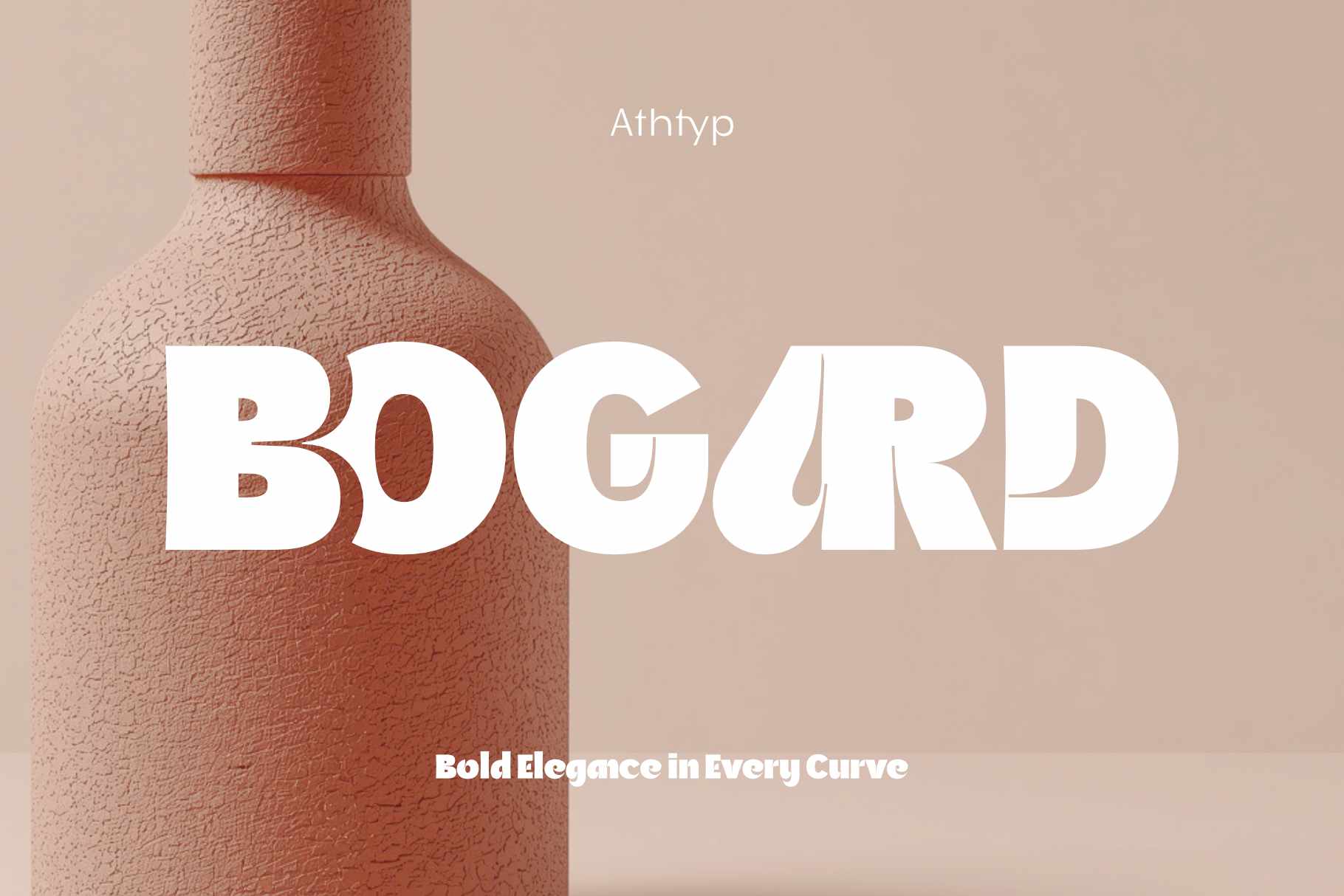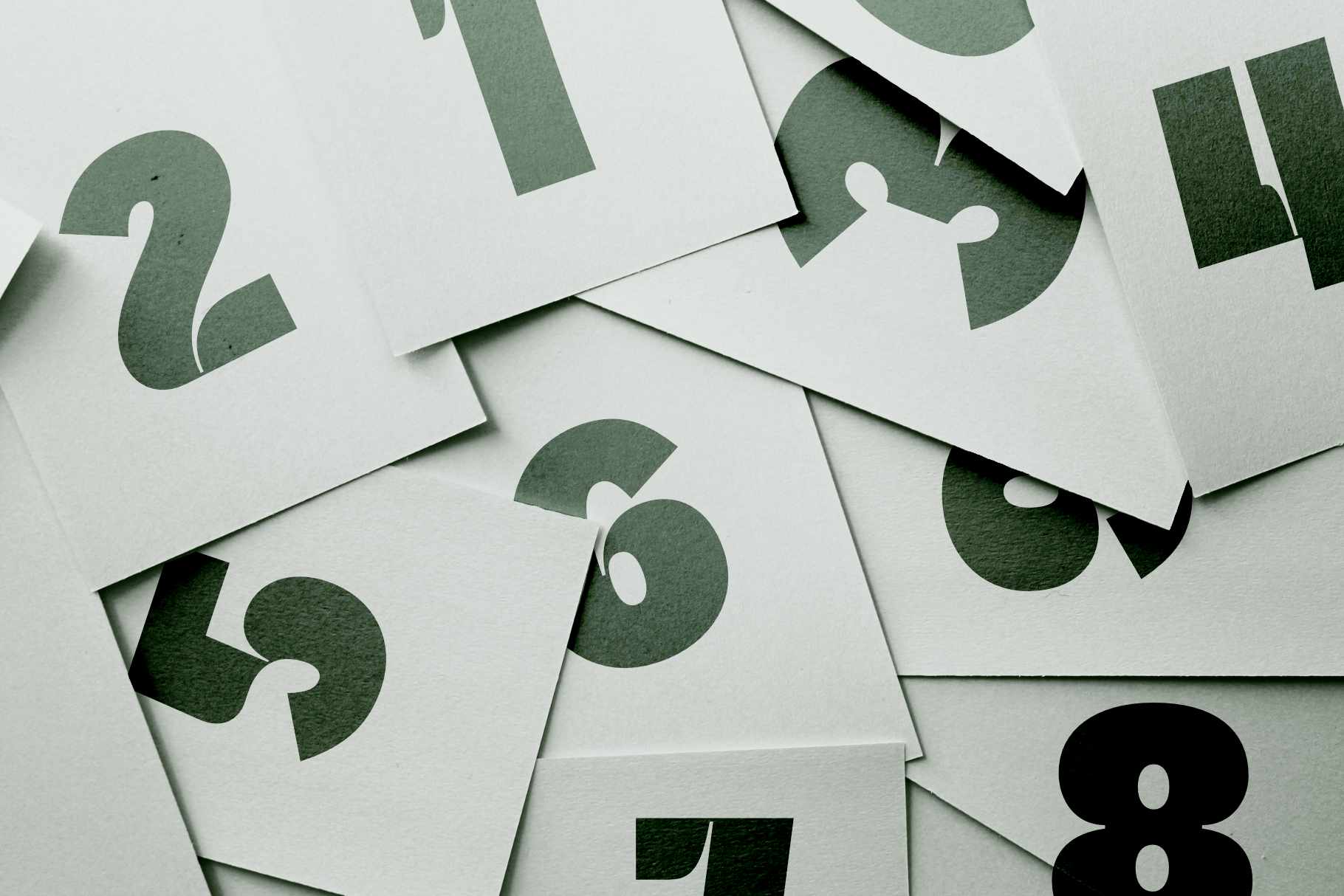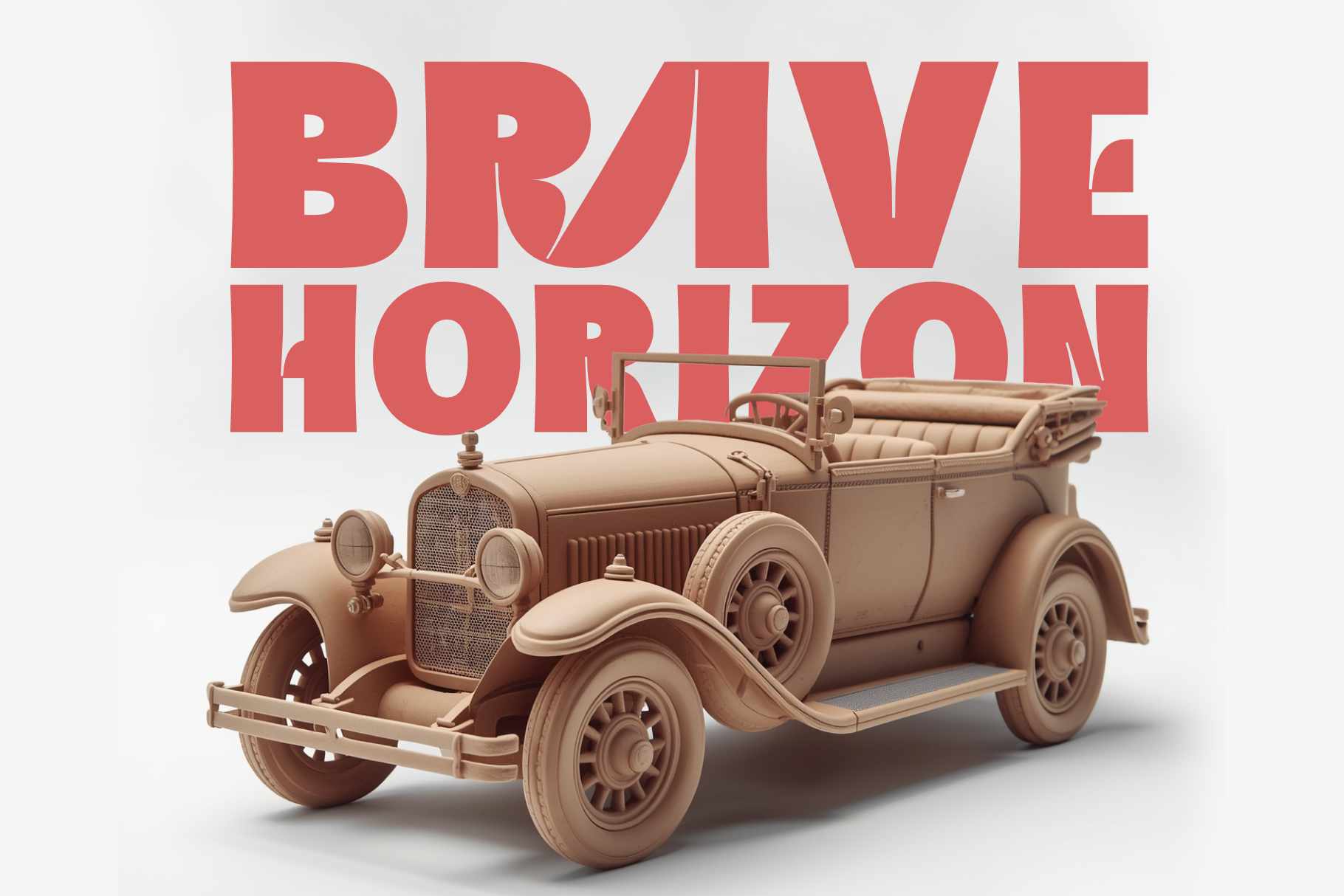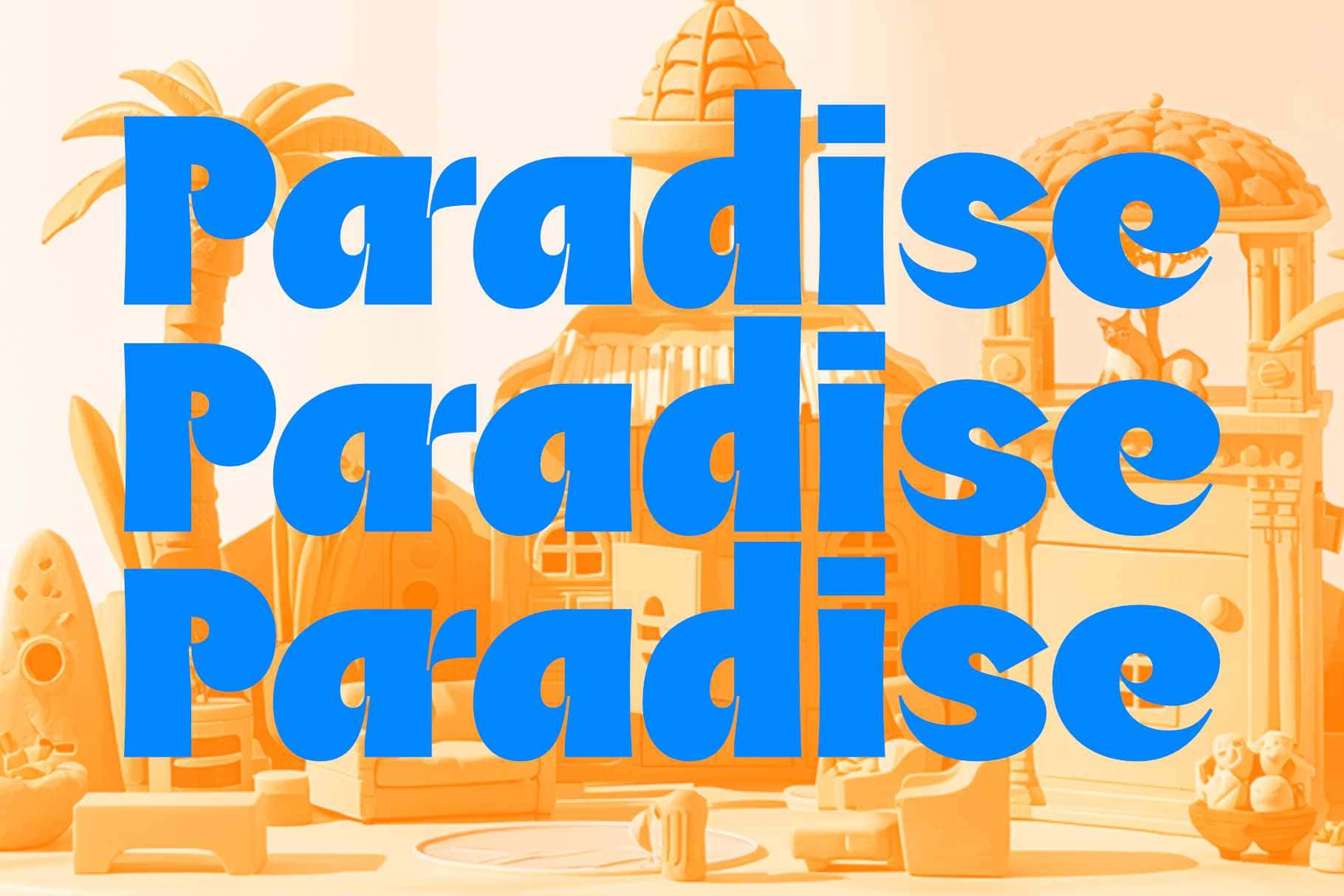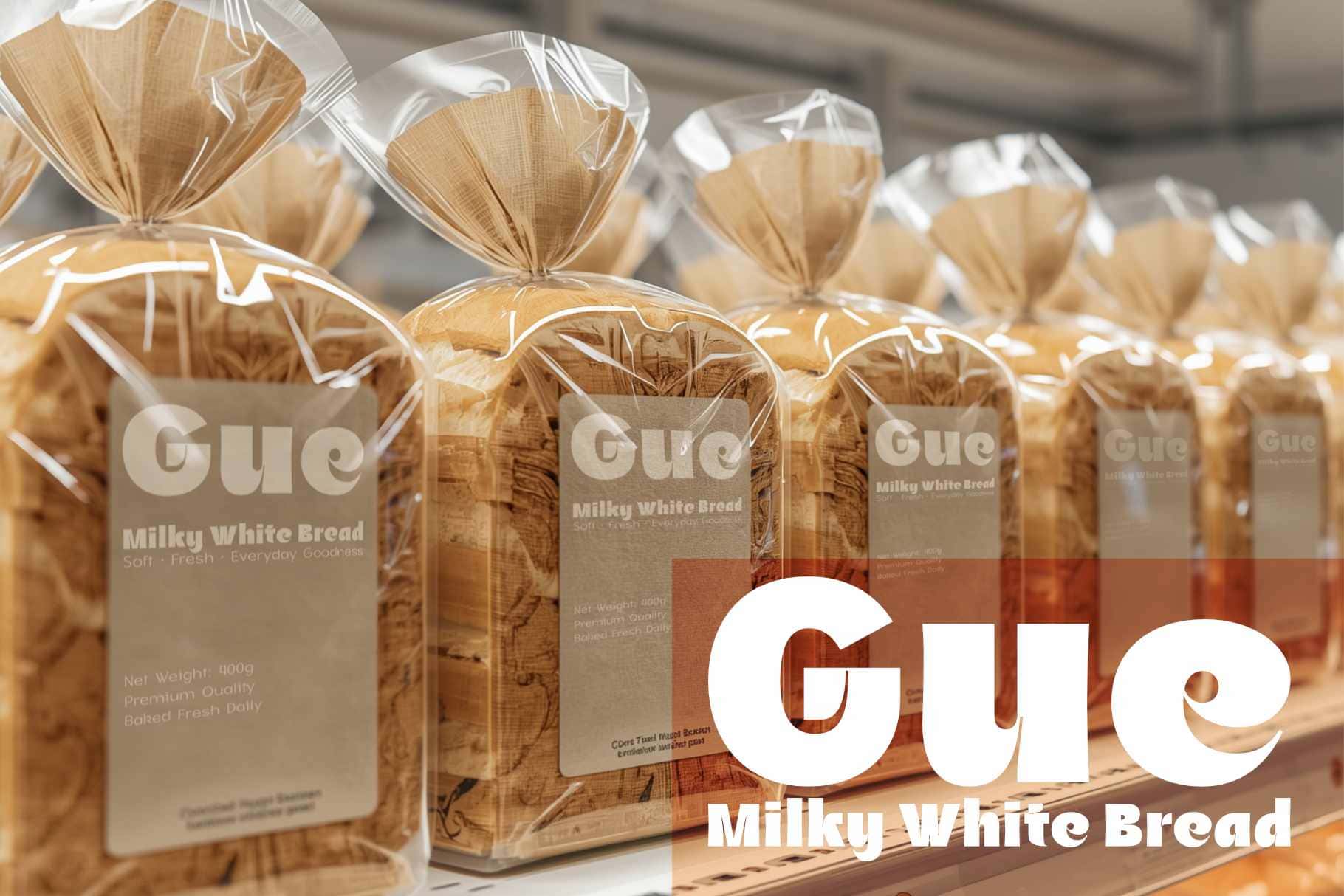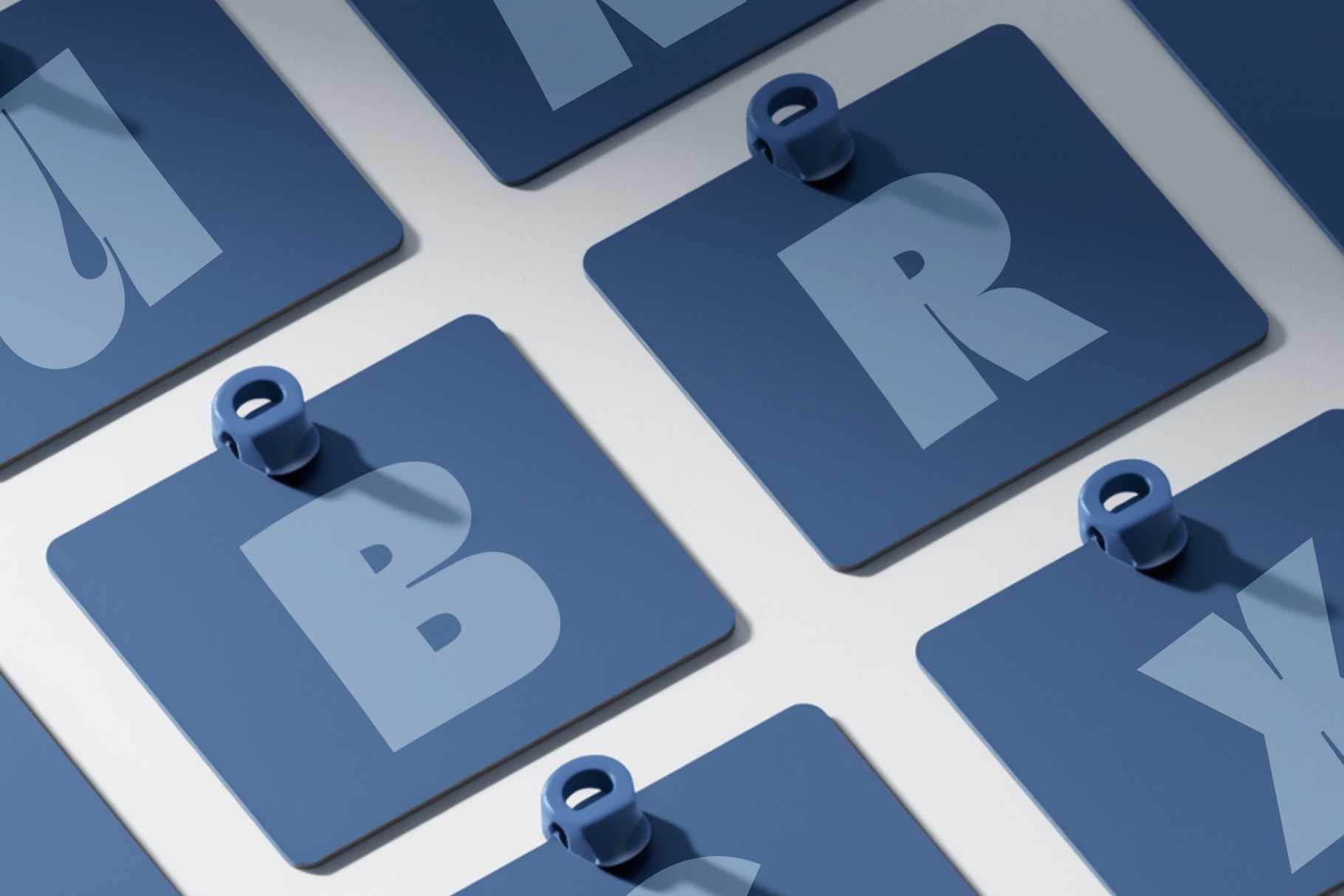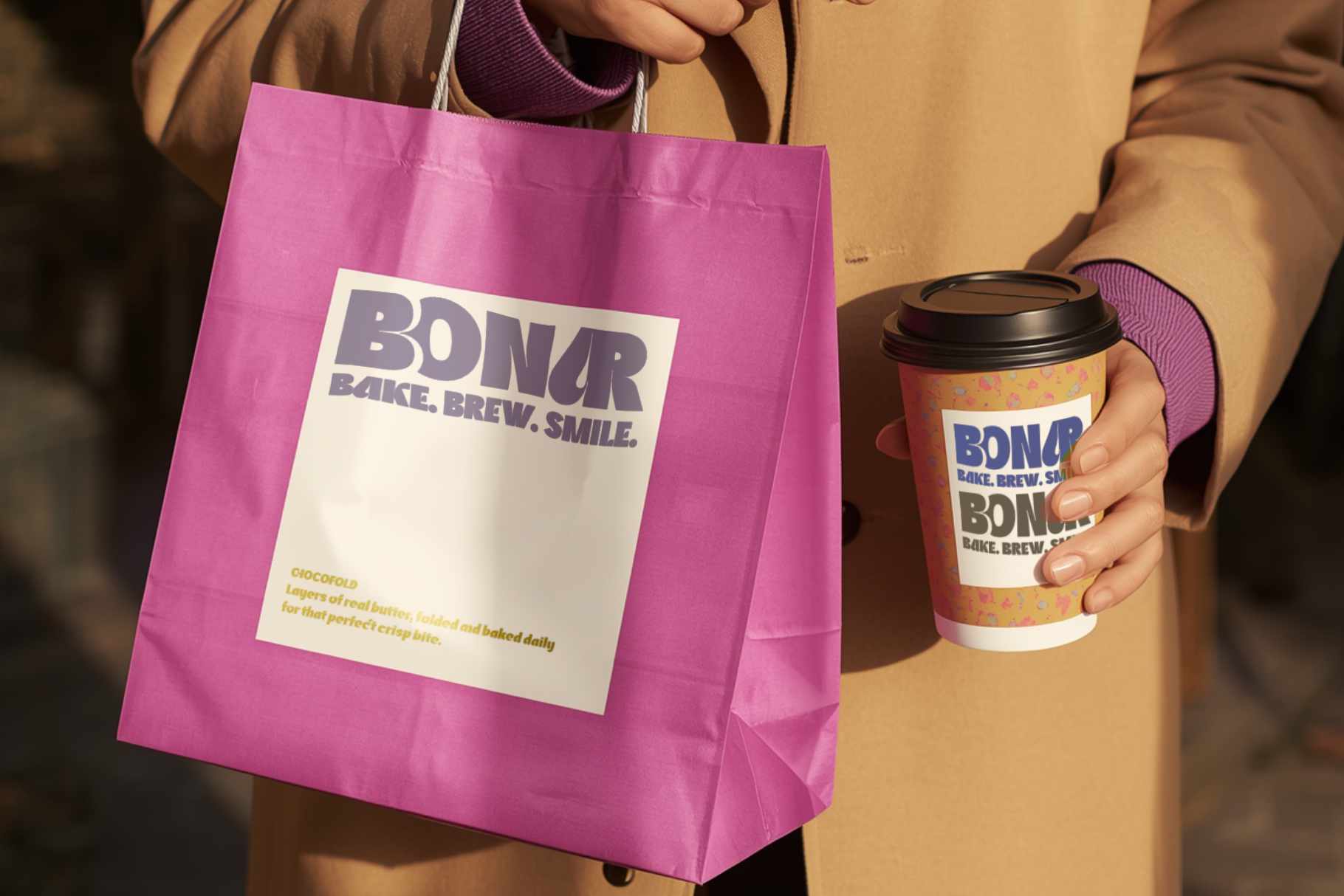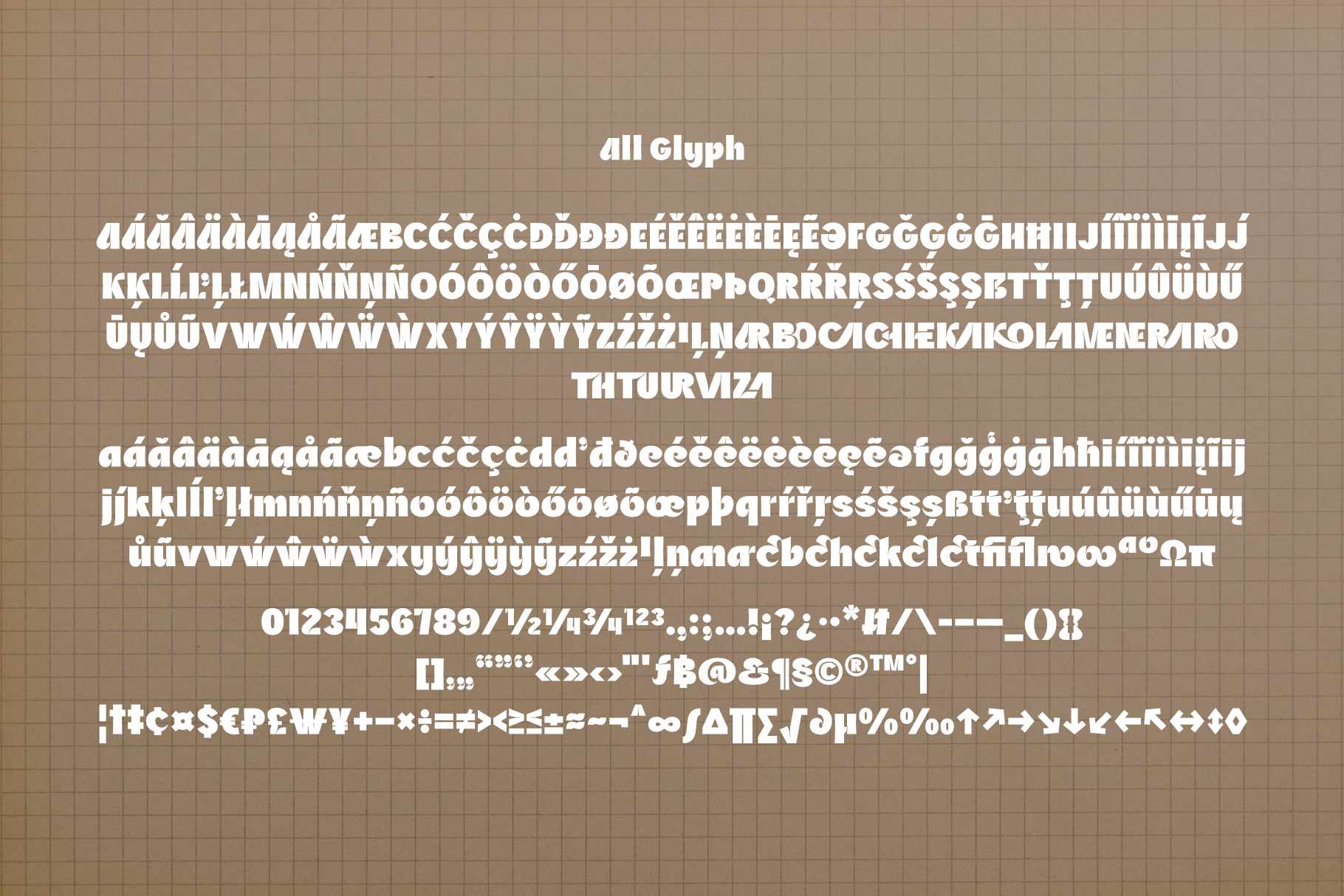
Bogard — Iconic Bold Display Font
Bogard is a new interpretation of bravery in design a visual experiment between the power of form and the beauty of rhythm.
Each letter feels like a living sculpture, with curves that are bold yet controlled, creating a subtle contrast between strength and softness.
Bogard — Iconic Bold Display Font refuses to be ordinary. It doesn’t speak only through its weight, but through the character woven into every detail of its anatomy — wide counters, elegant terminals, and dense, well-balanced strokes.
The letter “G” captivates the eye with its distinctive cut, the “A” stands tall against convention, and together they form a visual statement that is both daring and unforgettable.
This font was never made to fade into the background — it was crafted to command attention.
Bogard — Iconic Bold Display Font is the perfect choice for designers who want their work to stand out with refined confidence — from expressive branding and luxury packaging to bold posters and editorial layouts with artistic flair.
Balancing strength with aesthetics, Bogard embodies the spirit of bold modernism that celebrates originality.
Every curve is an expression; every line, a statement.